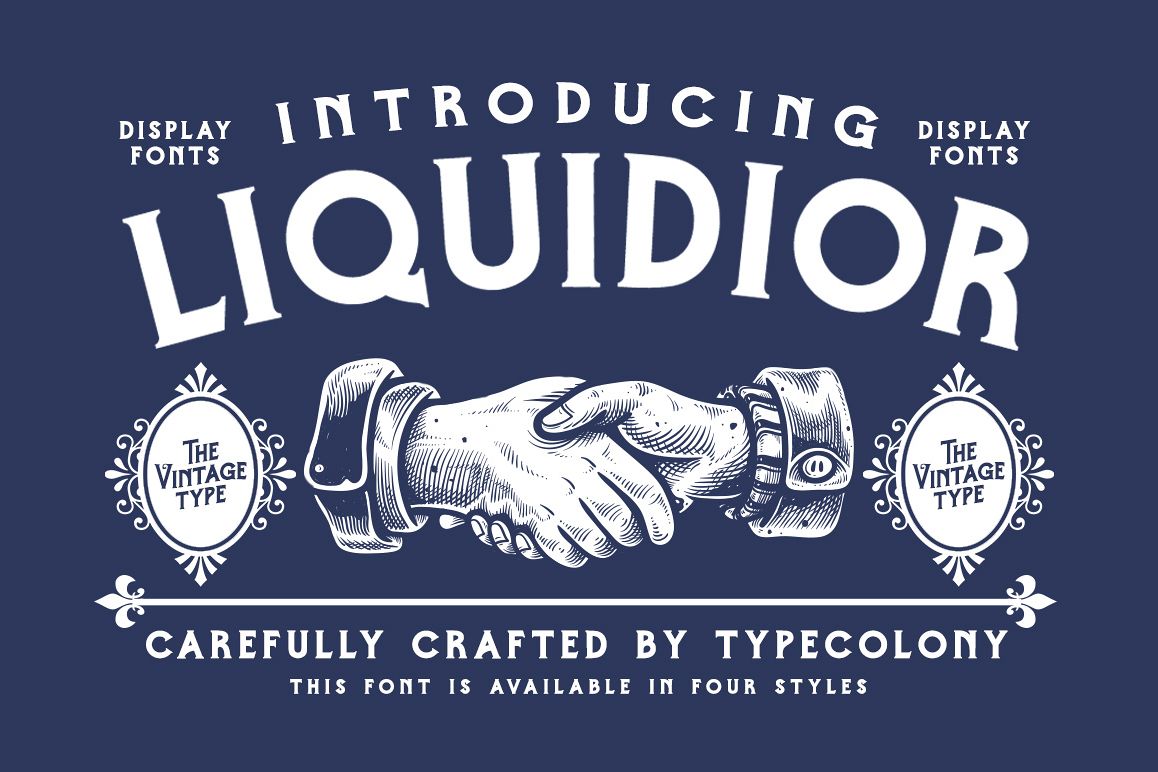
Liquidior Font
INTRODUCING LIQUIDIOR FONT
Liquidior Font is a casual vintage typeface with great style, clean, and vintage touch this typeface and allow you to make lettering and logotype quickly and easily.
This typeface is inspired by Ancient Greece typeface that has a vintage style, strong and classy. This typeface is suitable to use for any project such as Logotype, Letterhead, Poster, Apparel Design, Label and etc.FEATURES